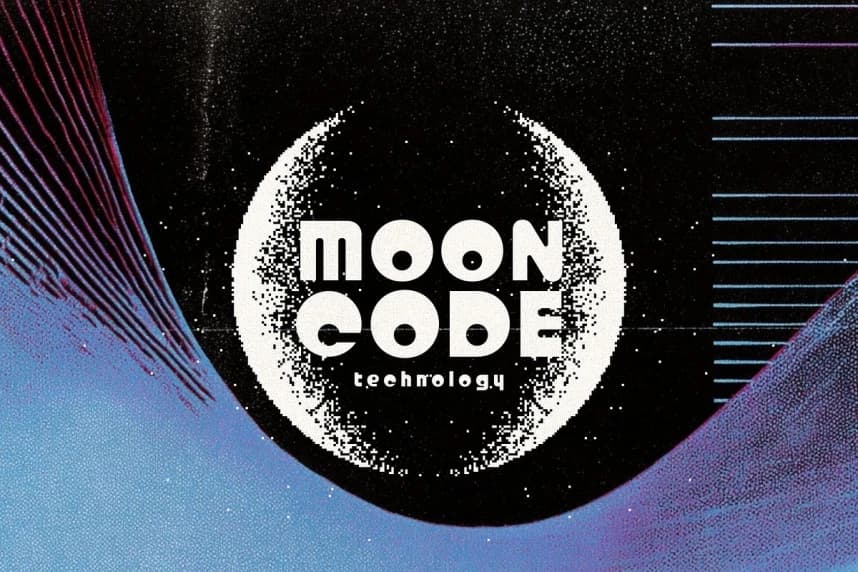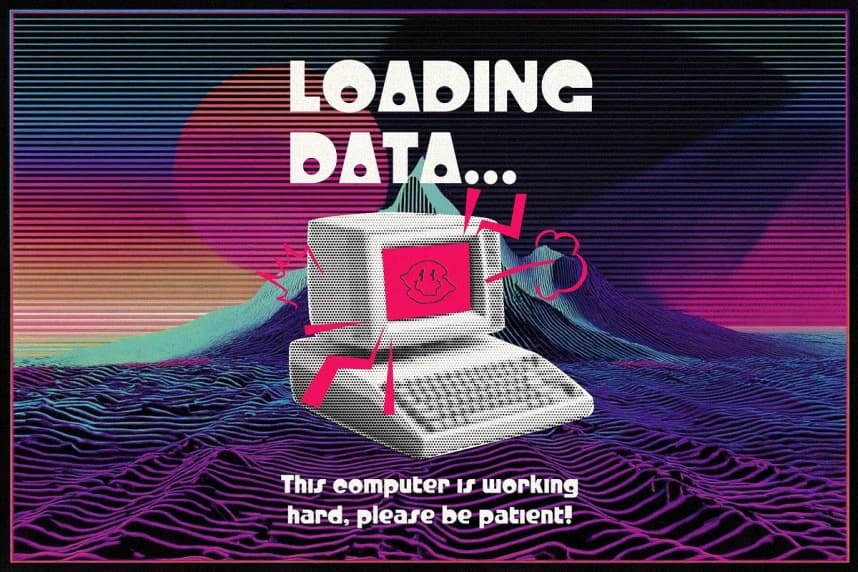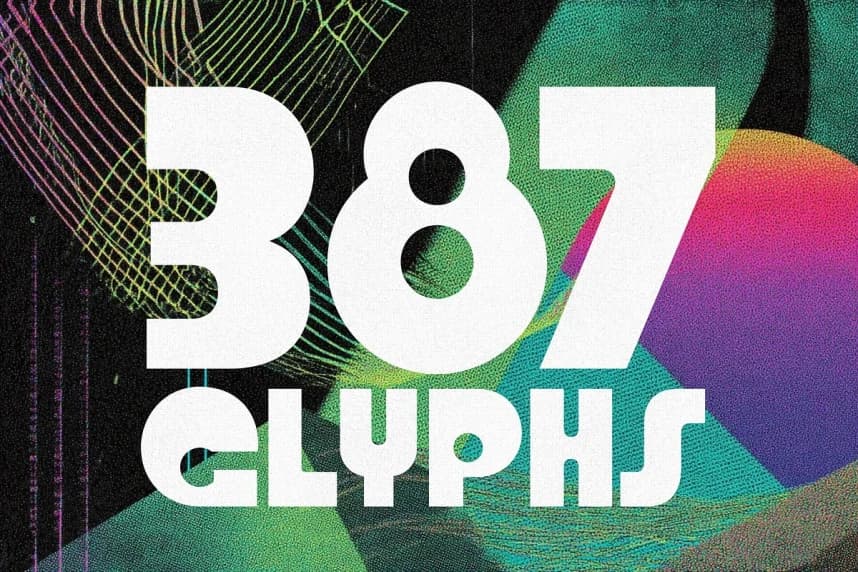
Analog Freak Font
Analog Freak Font, a retro techno font born from the strange brilliance of vintage logotype design. With its distinct, offbeat letterforms and unapologetically cool aesthetic, this typeface captures the quirky charm of early tech culture and transforms it into a full-blown typographic experience.
Analog Freak